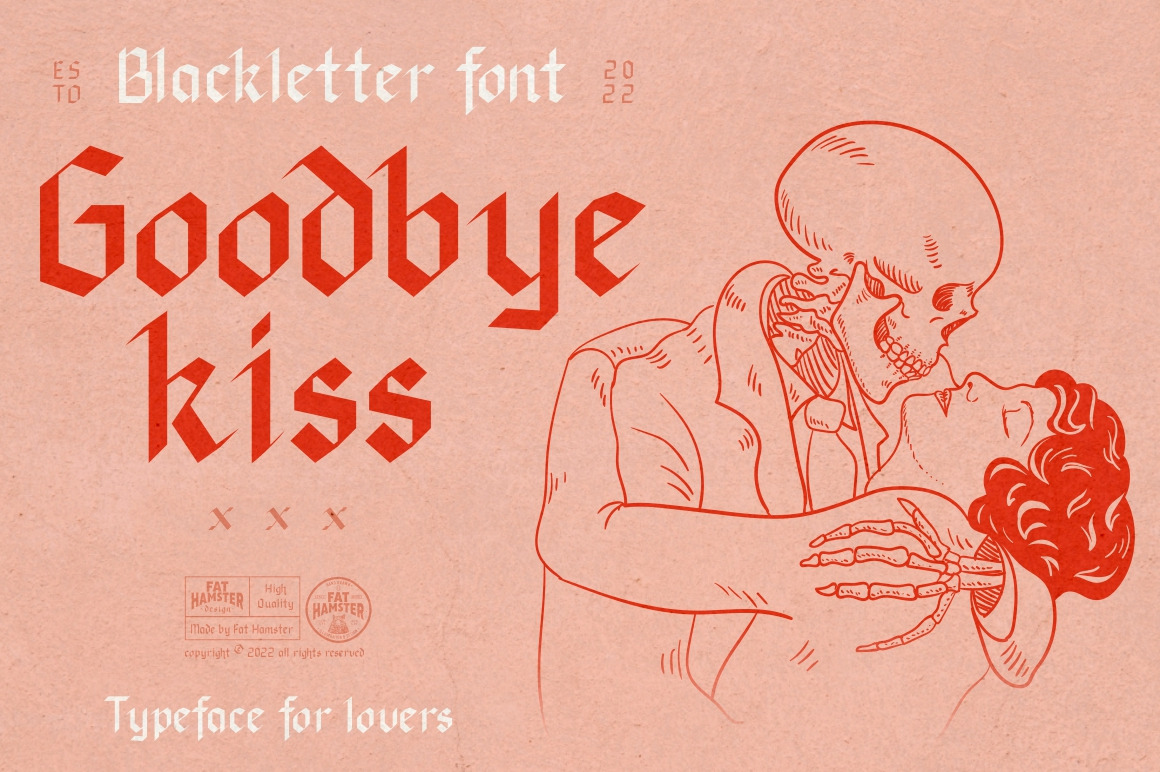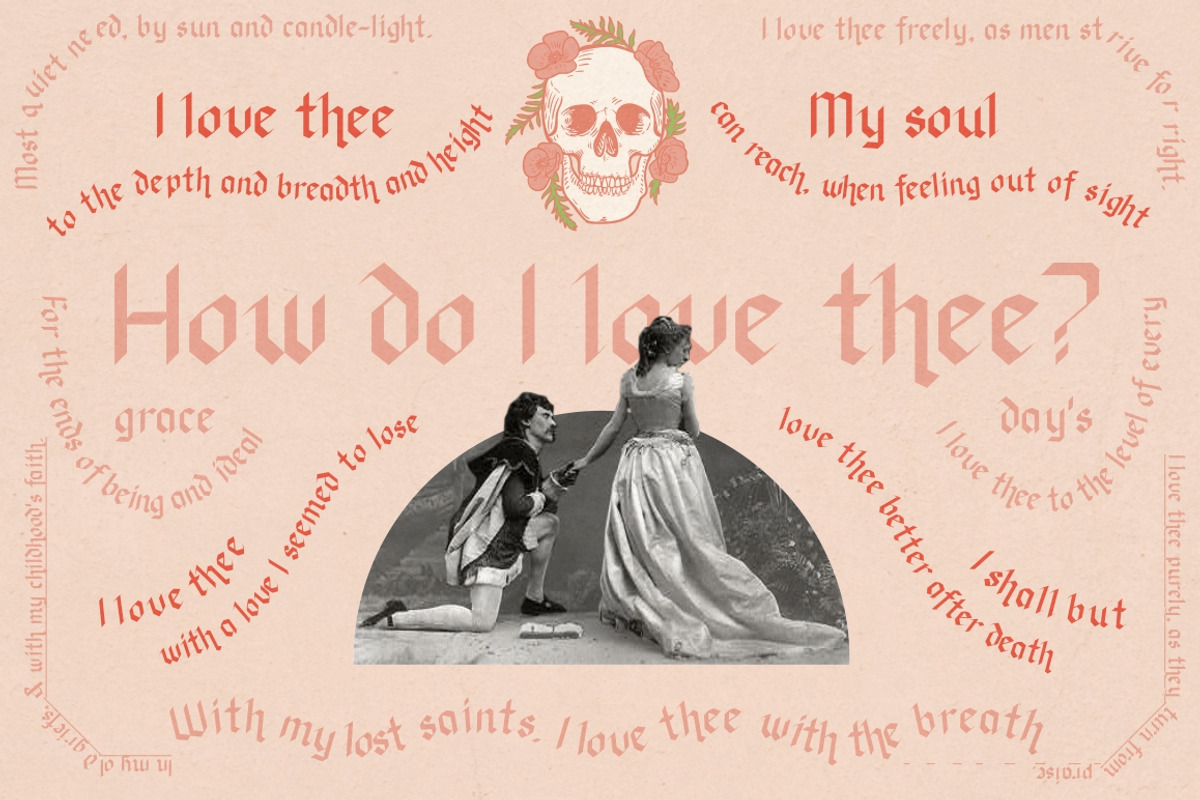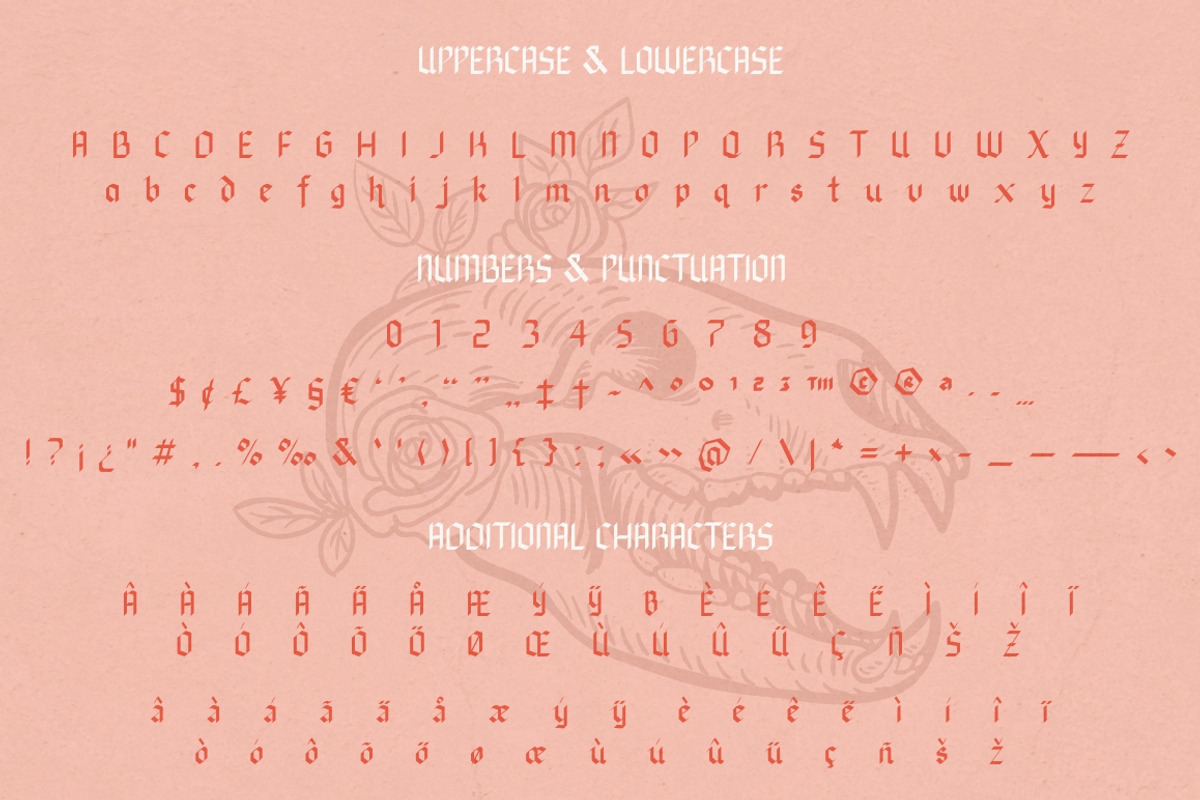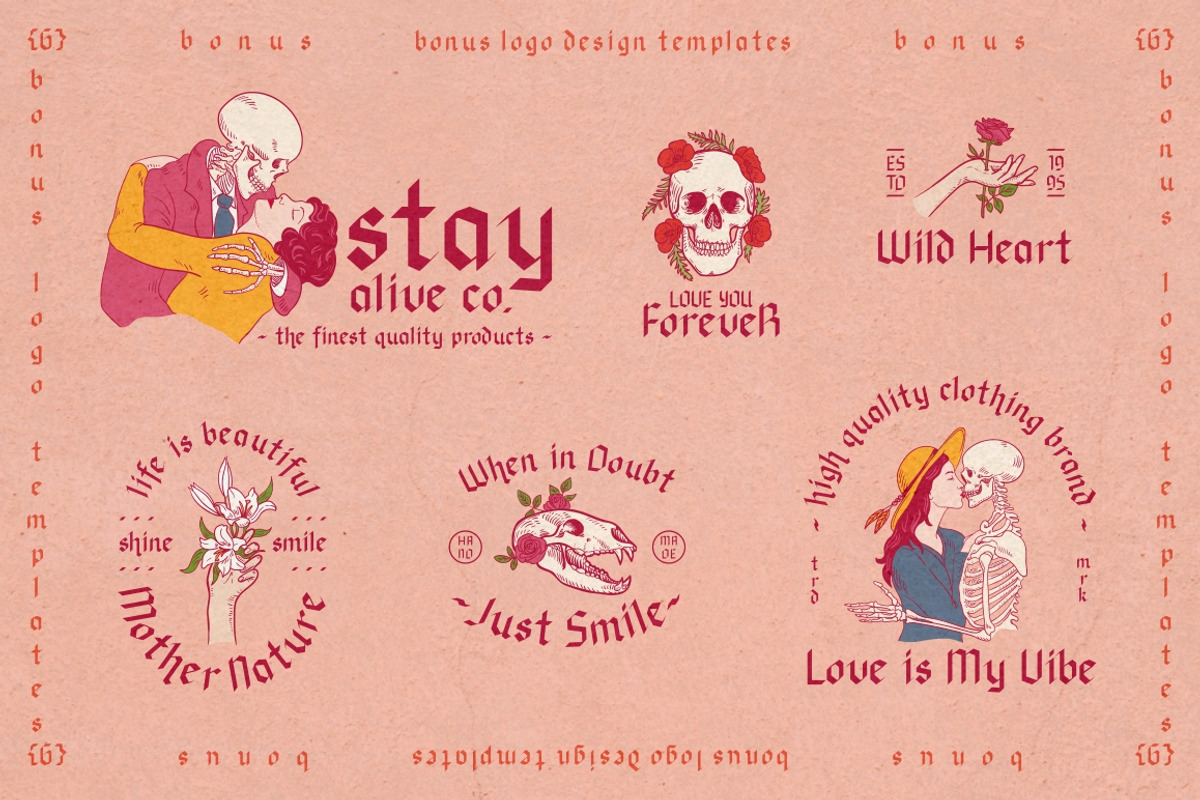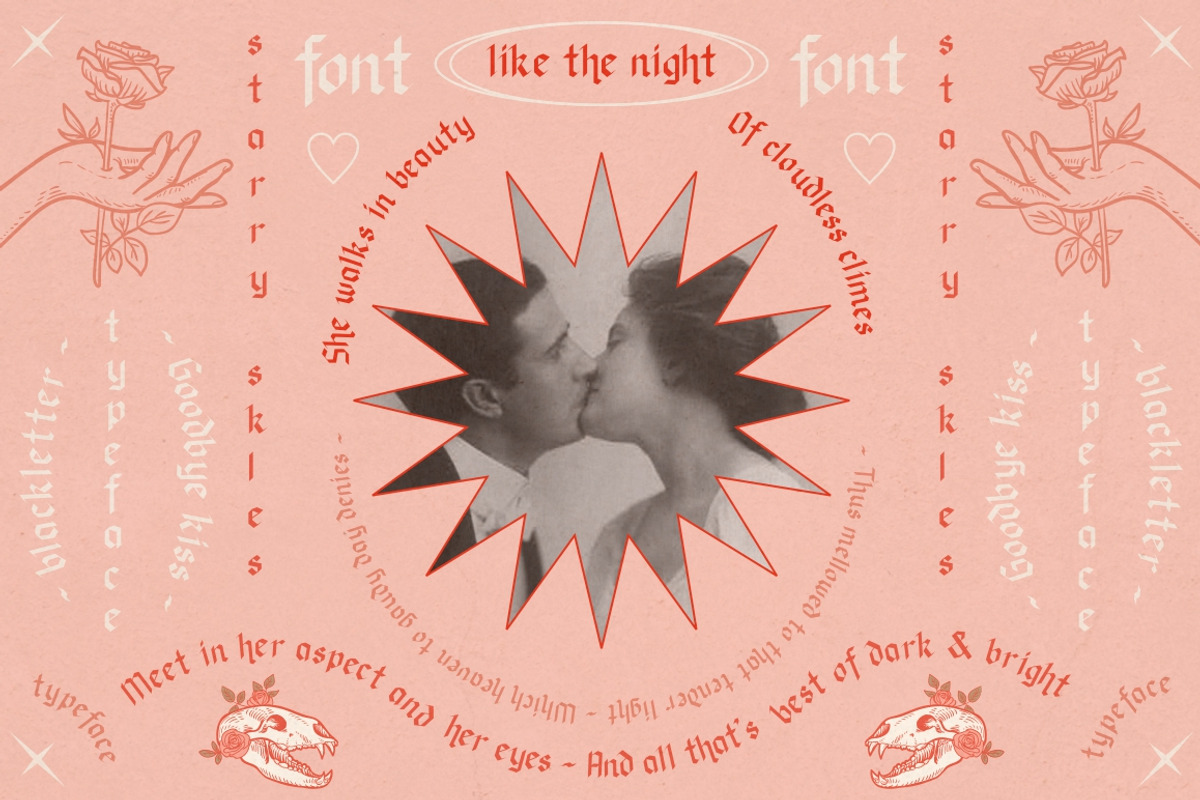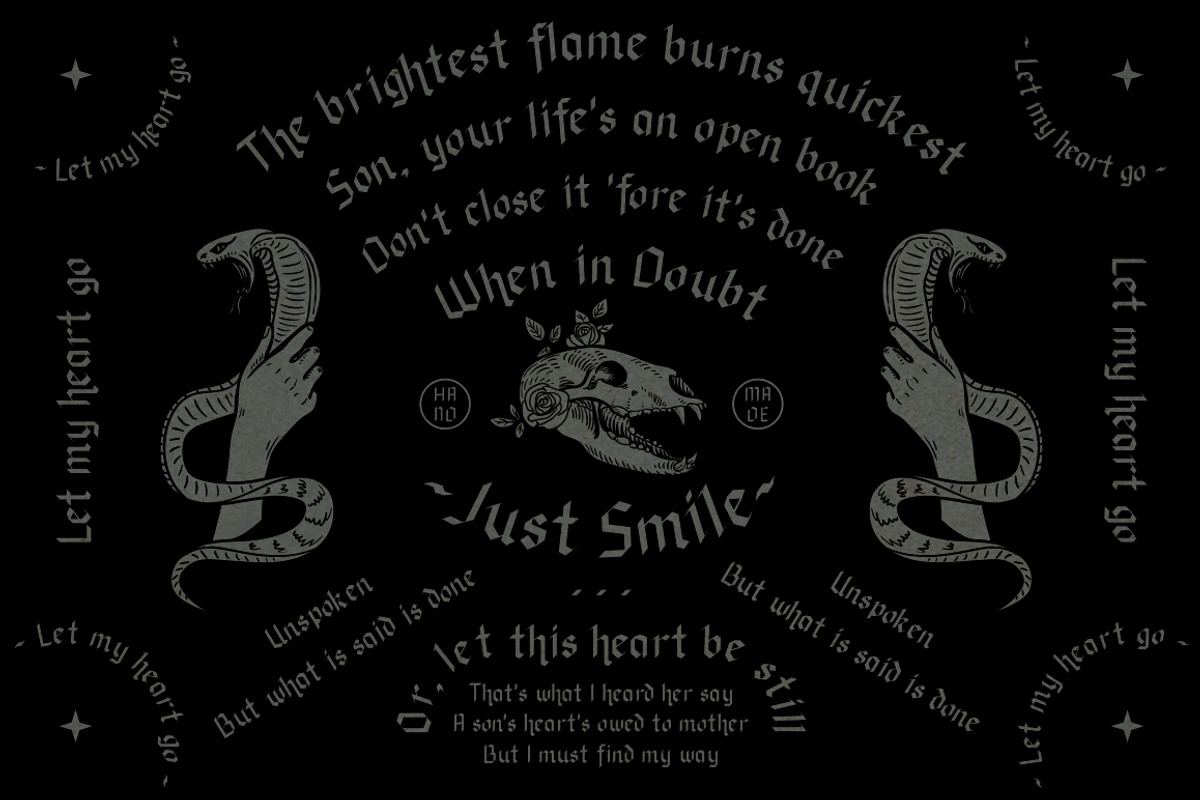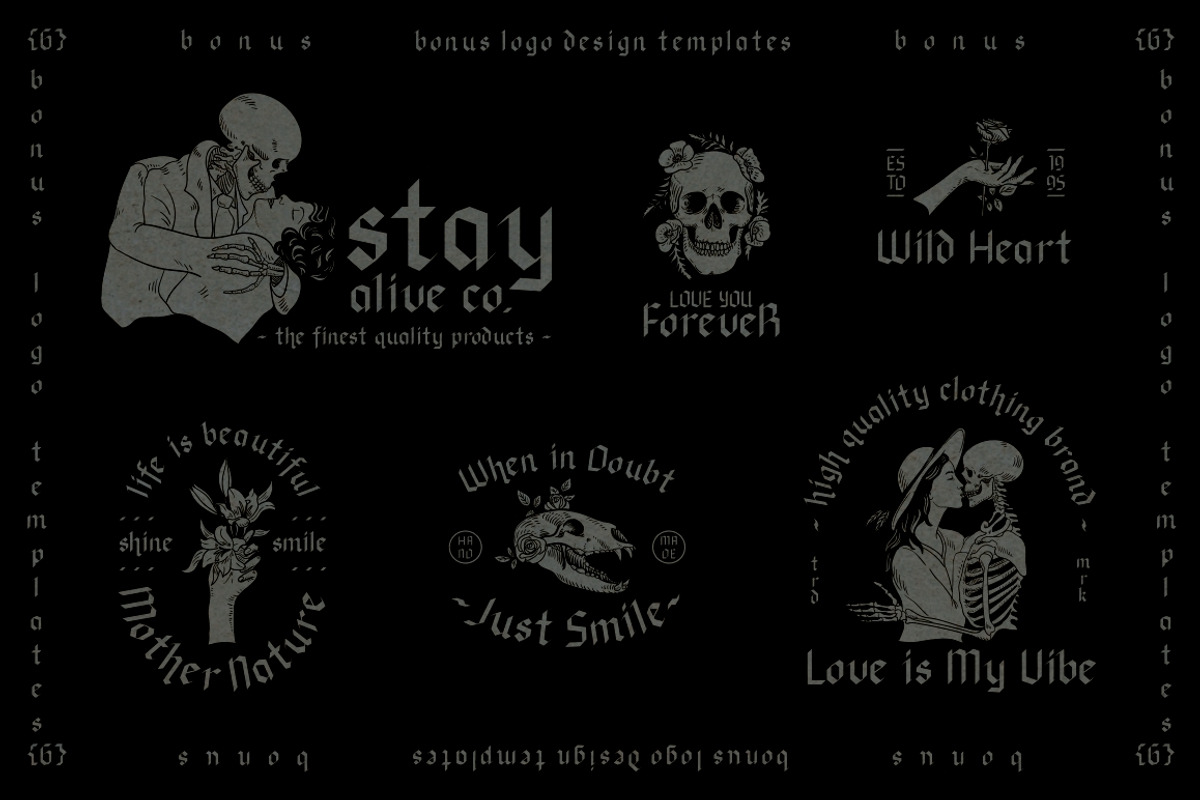
Goodbye kiss blackletter font
Goodbye kiss is a modern elegant blackletter typeface
Goodbye kiss is a stylish and elegant typeface. It comes with FREE logo design templates and illustrations. Goodbye kiss is a combination of femininity & brutality. This typefaces is perfect for tattoo projects, poster design, t-shirt design, printing, logo design, quotes, apparel design, album covers and etc.